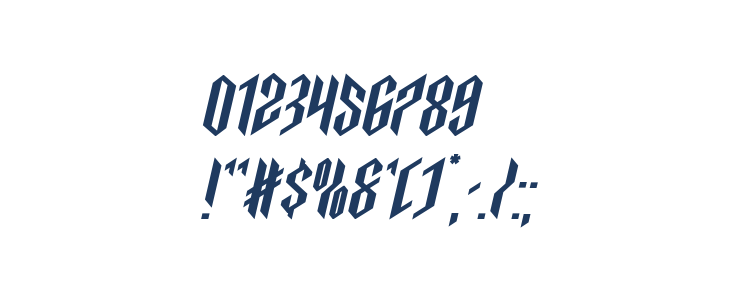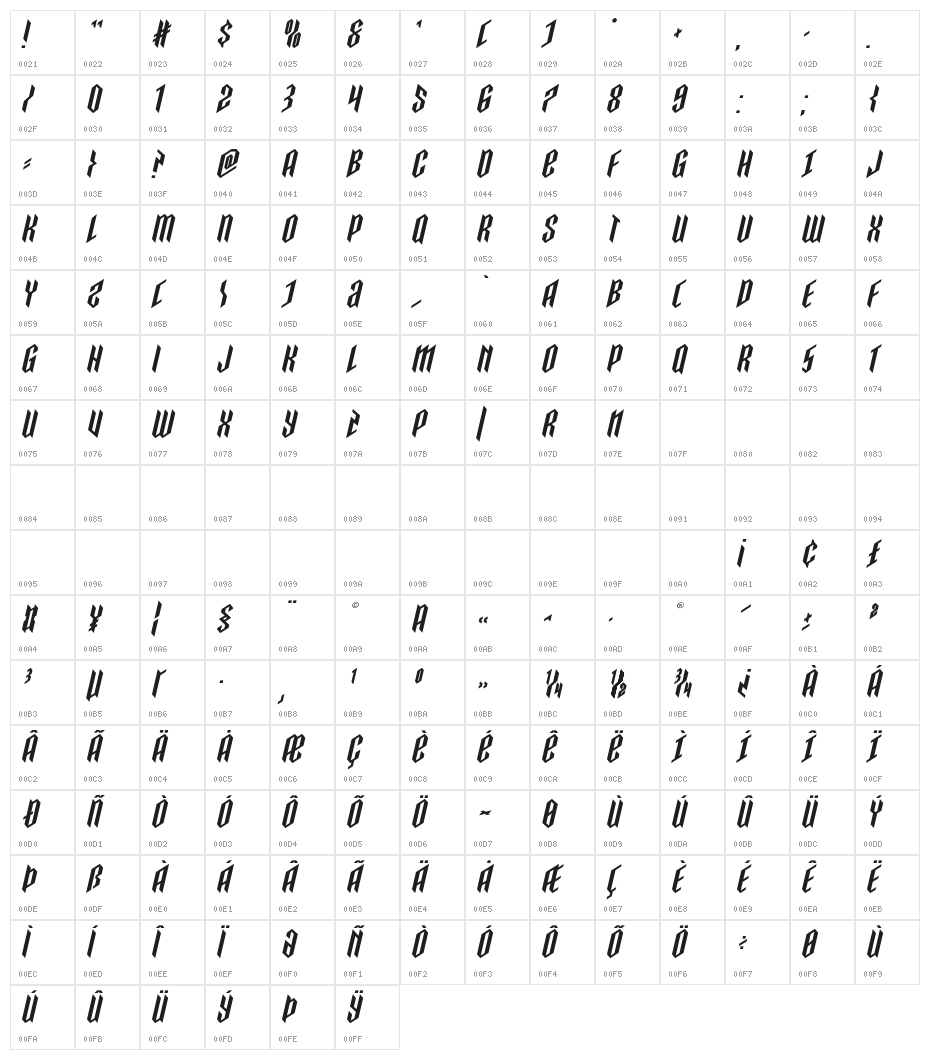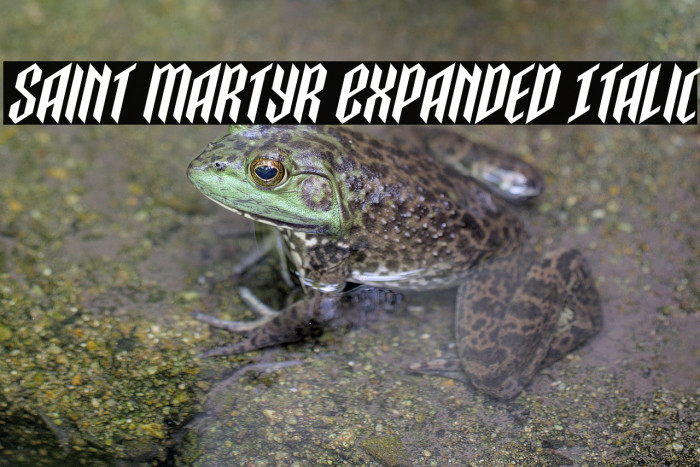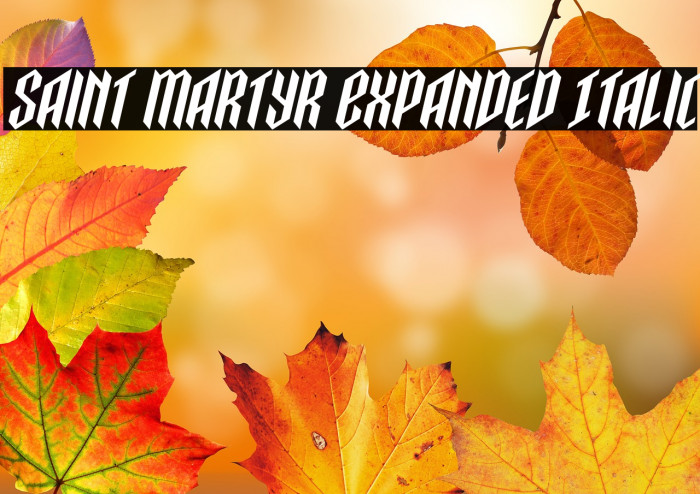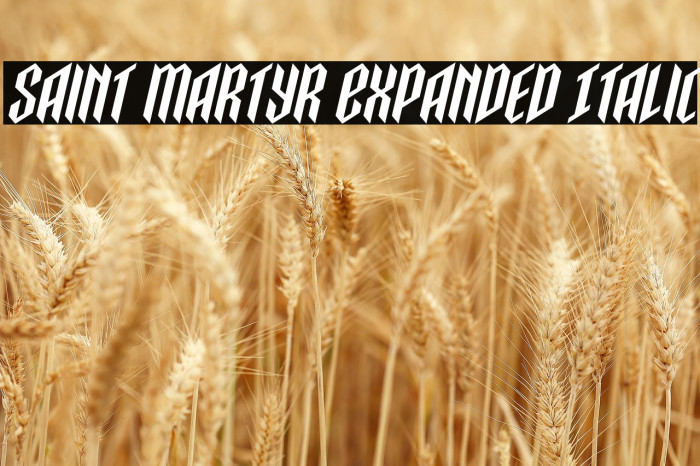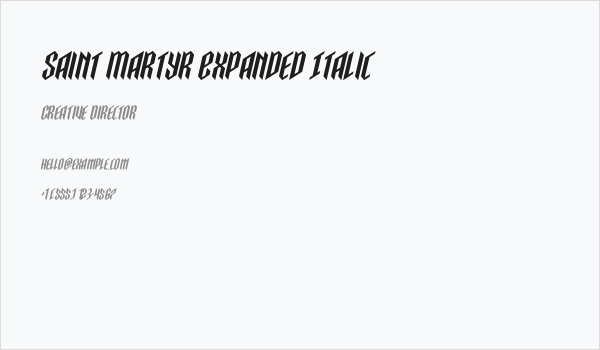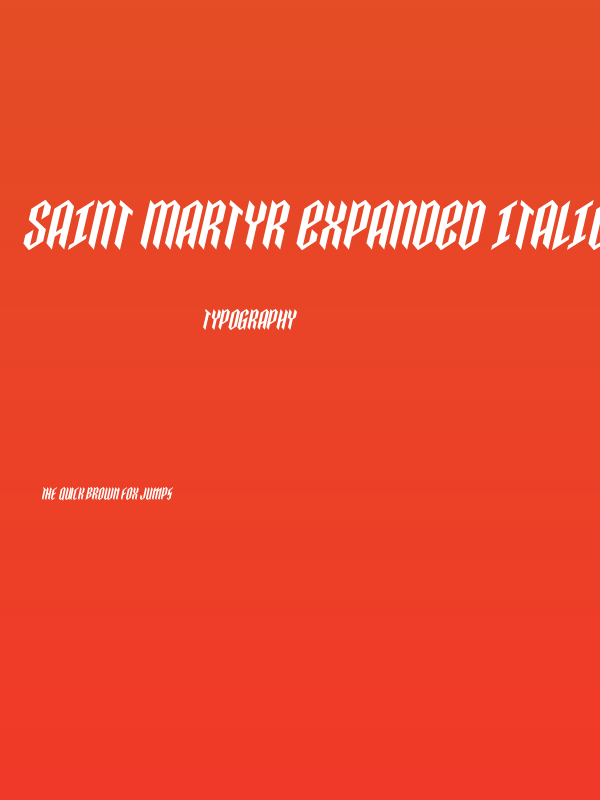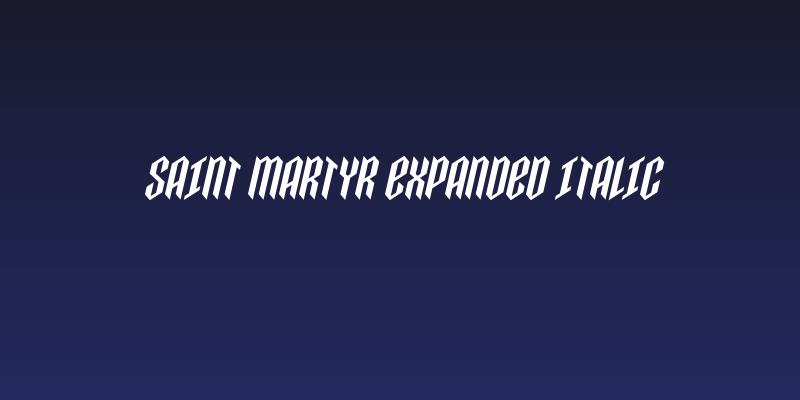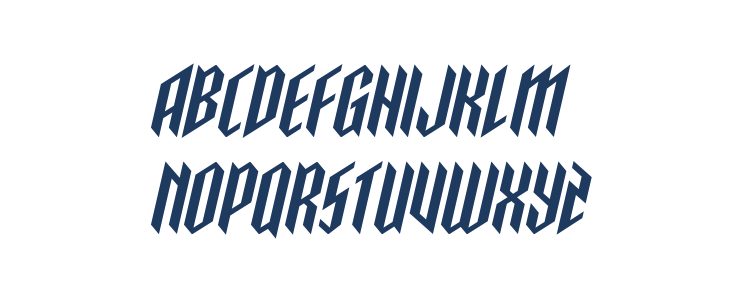
Saint Martyr Expanded Italic Font
Saint Martyr Expanded Italic Description
This font features a bold and dynamic style with a strong italic slant, creating a sense of movement and urgency. The characters are sharply angular, with a distinct geometric influence that gives them a modern and edgy appearance. The expanded width of the letters enhances readability while maintaining a unique aesthetic. The high contrast between thick and thin strokes adds to the dramatic effect, making it ideal for attention-grabbing headlines or impactful designs. The font's overall style is both contemporary and assertive, suitable for projects that require a bold statement.